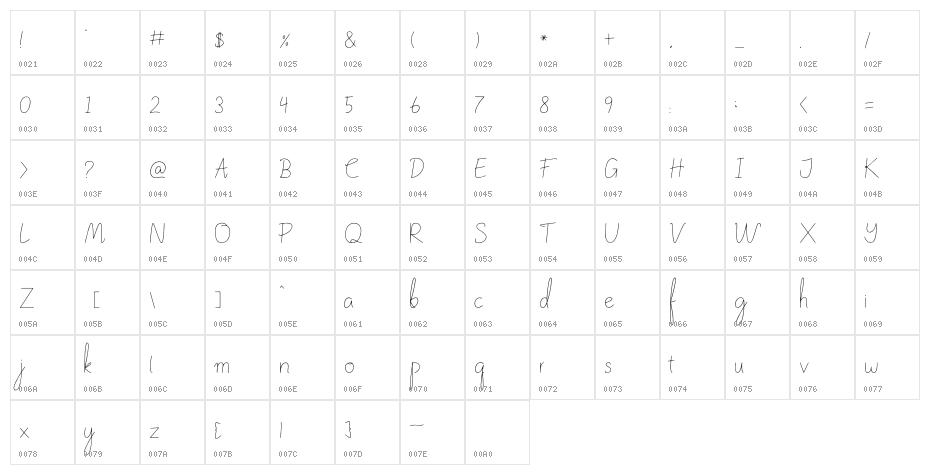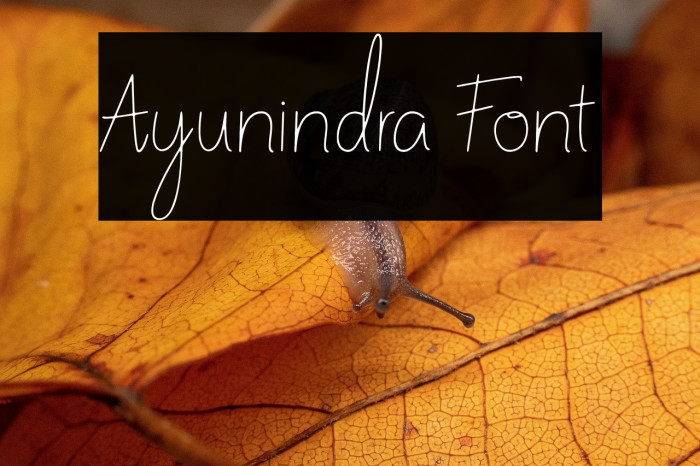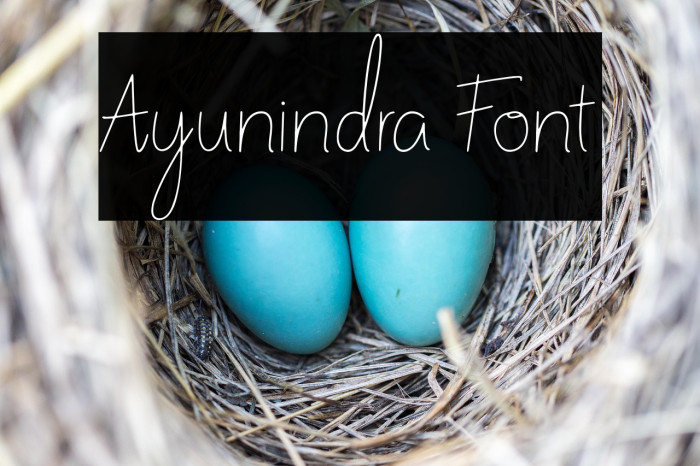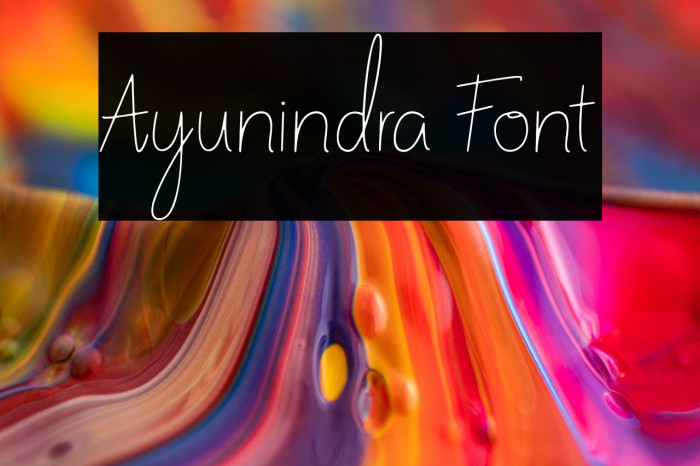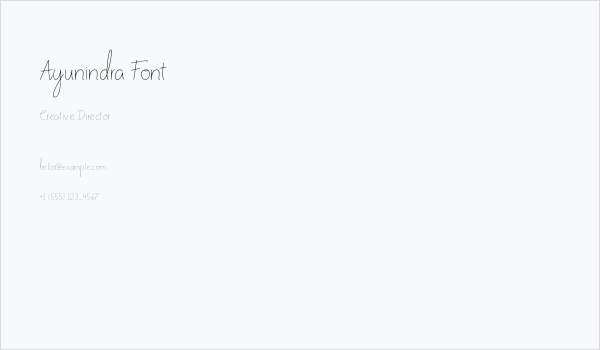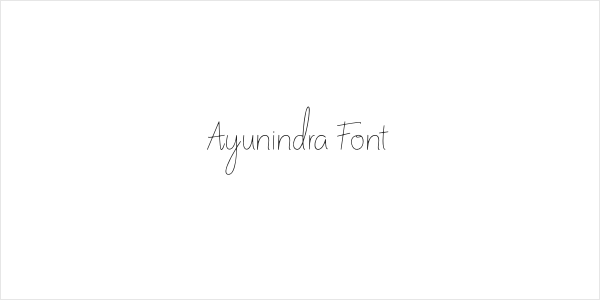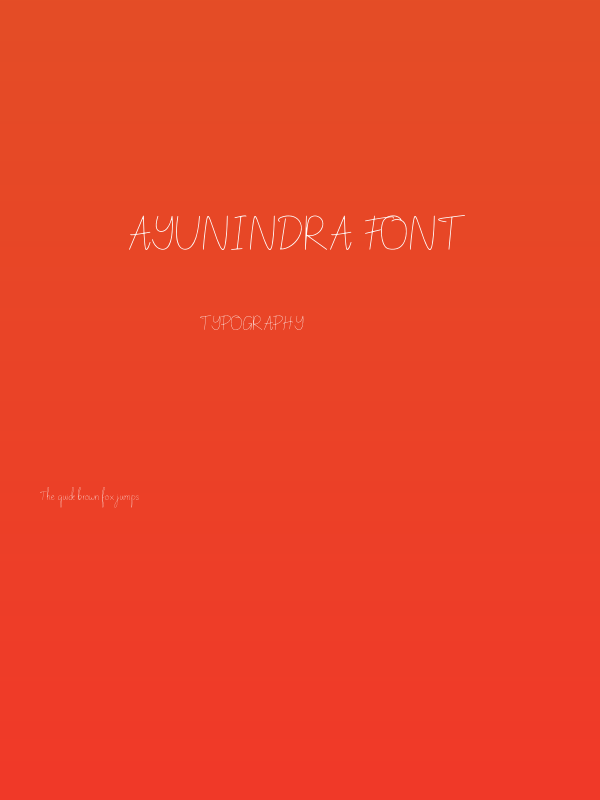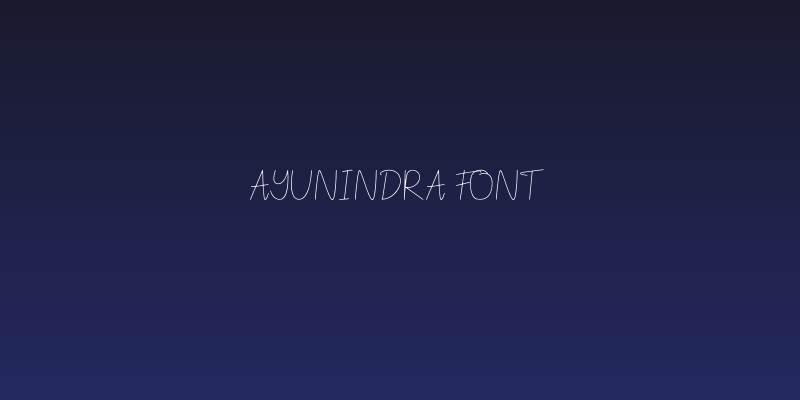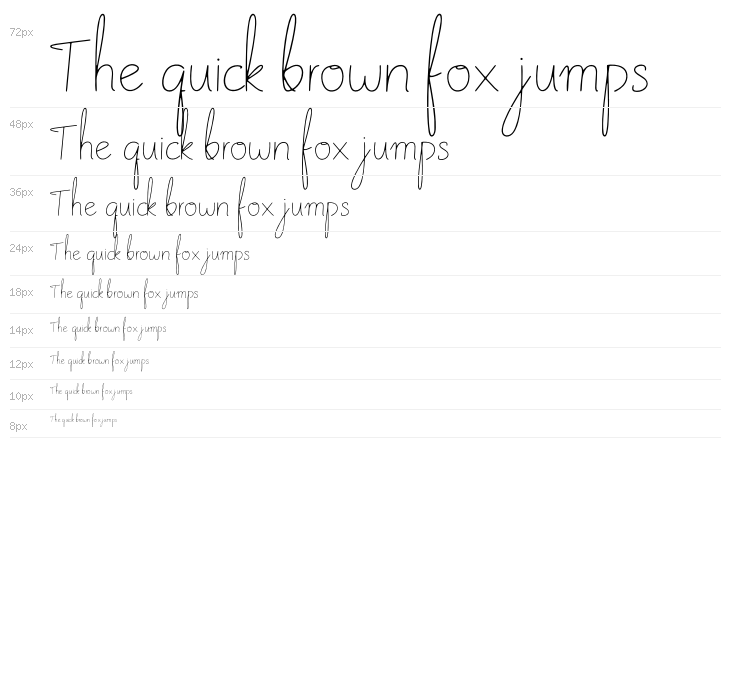
Ayunindra Font Font
Ayunindra Font Description
This font features a delicate and elegant handwritten style, characterized by thin, flowing lines that create a sense of fluidity and grace. The uppercase letters maintain a consistent height, while the lowercase letters exhibit a playful variation in height and slant, adding a whimsical touch. The numerals are clear and legible, matching the overall airy and light aesthetic. Special characters are seamlessly integrated, maintaining the font's cohesive style. This font's design is both sophisticated and approachable, making it versatile for various creative applications.
| Overall Style | Elegant, Whimsical |
| Use Case | Invitations, Artistic projects, Personal branding |
| Proposed Projects | Ideal for wedding invitations, greeting cards, personal branding, and artistic projects requiring a personal touch. |